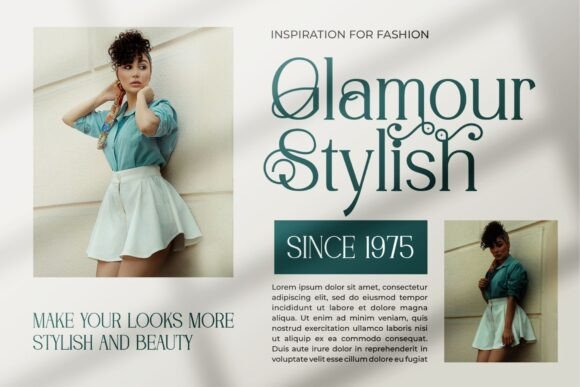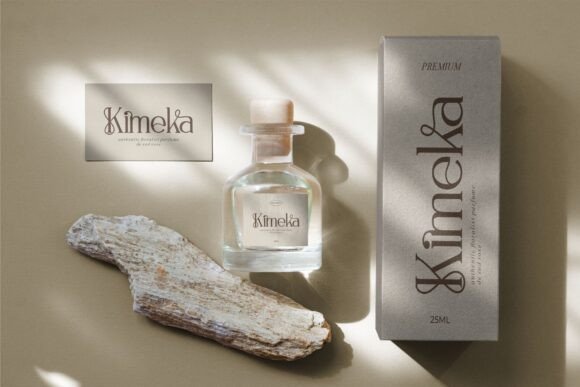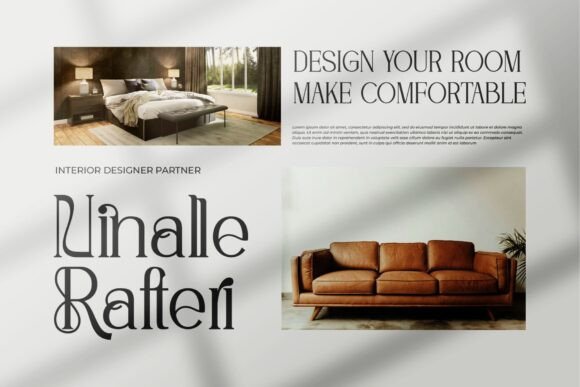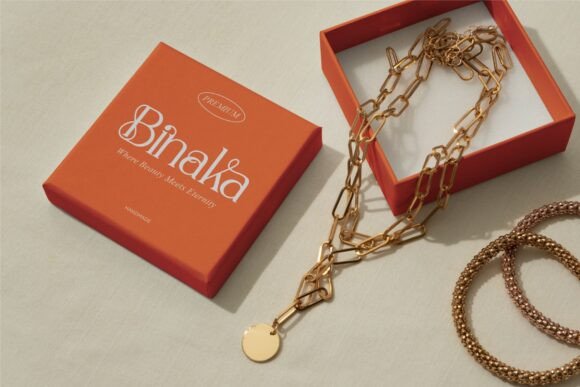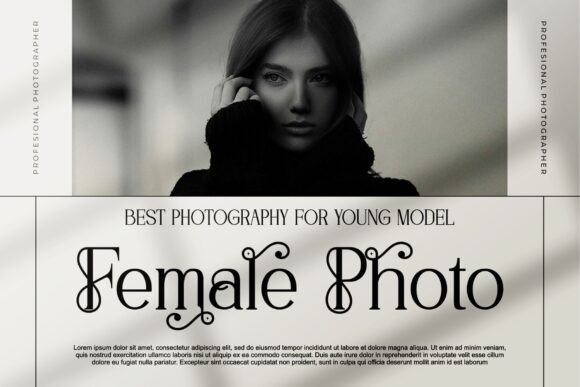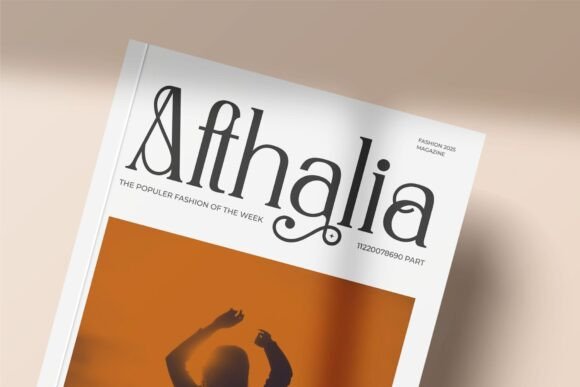
Introduction to Rekalin Font
Have you ever been stuck on a design project, searching for the perfect font to give it that extra oomph? We’ve all been there – pouring over design resources, scrolling through endless options, and still, nothing seems quite right. But what if we told you that there’s a font that can elevate your creative project from good to great?
Meet the Rekalin Font, a modern, serif font that’s as elegant as it is stylish. With its unique character, this font is perfect for designers looking to add a touch of sophistication to their designs. Whether you’re creating an invitation card, designing a company logo, or crafting a movie title, the Rekalin Font is an excellent choice.
Key Features of Rekalin Font
- High-quality, professional design resource ideal for creative projects.
- Designed with a unique, modern aesthetic, making it perfect for various design applications, from logos to typography.
Honest Review: Rekalin Font
I recently had the opportunity to use the Rekalin Font in a creative project and was pleased with the results. The font is a great design resource that offers a lot of flexibility and style.
Here are some of the things that work well: ✨
- The Rekalin Font is a high-quality font that is perfect for creative projects.
- The font has a transparent background, which makes it easy to layer and combine with other design elements.
However, there are a few limitations to be aware of: ⚠️
- The font may not be suitable for very small text sizes, as it can become difficult to read.
- The font does not include a wide range of language support, which may be a limitation for designers working on international projects.
Overall, I was impressed with the Rekalin Font and would recommend it to designers looking for a high-quality, free font for their creative projects.
Tips for Getting the Most Out of Rekalin Font
Experiment with different font sizes and colors to create a unique design. Use the transparent background feature to add depth and visual interest to your design.
Common Use Cases for Rekalin Font
Use the Rekalin Font for creative projects such as logos, business cards, and brochures. The high-quality font is perfect for presentations and documents that require a professional touch.
Alternatives to Rekalin Font
The Great Vibes Font is a high-quality, modern script font perfect for creative projects. It features a transparent background, making it ideal for overlaying text on images. This font is ideal for designers who want a elegant and sophisticated look for their designs.
Compared to Rekalin Font, Great Vibes Font has a more refined and polished look, making it suitable for high-end design projects.
The Alex Brush Font is a beautiful, handwritten font with a high-end feel. It’s perfect for designers who want to add a touch of elegance and sophistication to their designs. This font is ideal for creative projects that require a high level of design resource.
Compared to Rekalin Font, Alex Brush Font has a more refined and polished look, making it suitable for high-end design projects. It also has a more subtle and understated feel, making it ideal for designs where you want to let the content shine.